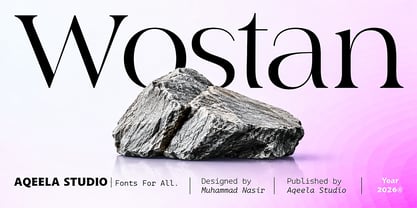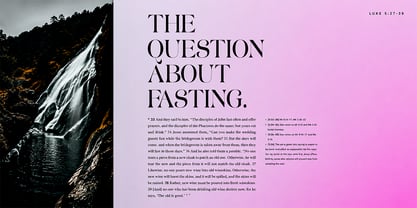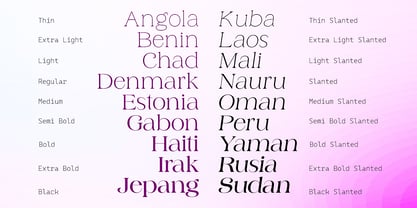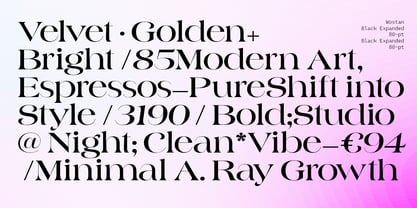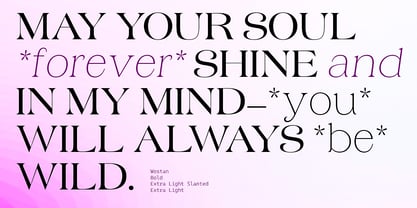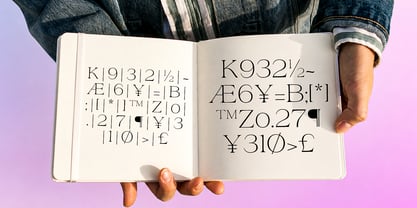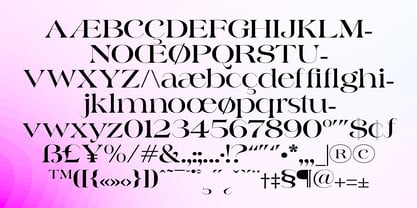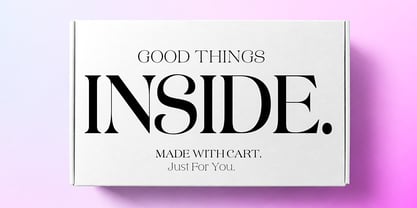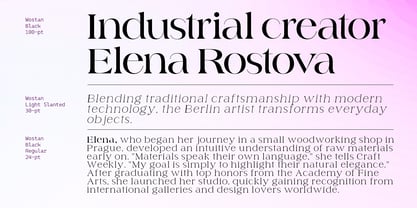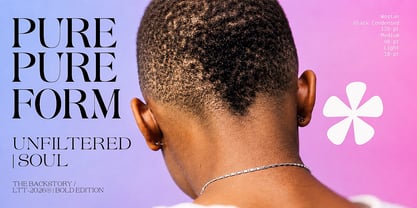
Wostan
by Aqeela Studio
The Wostan Font Family was designed by Muhammad Nasir and published by Aqeela Studio. Wostan contains 91 styles and family package options. More about this family
Wostan is a modern high-contrast serif typeface designed by Muhammad Nasir and published by Aqeela Studio that seamlessly combines classic editorial elegance with contemporary visual impact. Featuring a wide range of weights from delicate Thin to bold Black—alongside slanted and condensed variants—its sharp contrast, refined serifs, and subtle organic calligraphic strokes make it an ideal choice for high-end packaging, luxury branding, fashion editorial spreads, and bold display headlines.
Designers: Muhammad Nasir
Foundry: Aqeela Studio